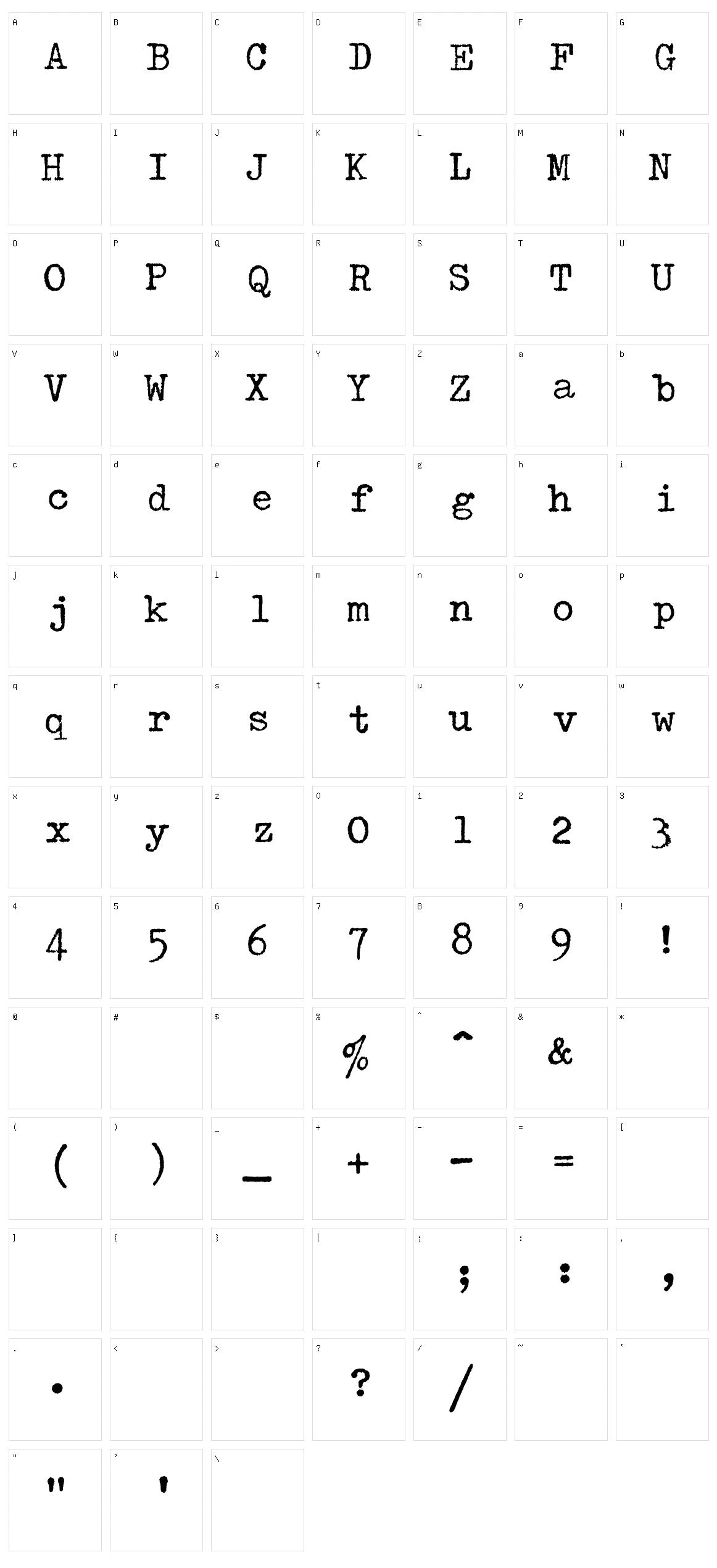
The free font Underwood 319 is carefully designed by Julien Gagne, showcasing a thoughtful balance of creativity and usability and falls under the Typewriter font style. When you download the ZIP file, it contains only 36.68 KB of font files, making it lightweight and quick to download. Please review the license details below to understand permitted usage and distribution rights. If license information is not available, we recommend using this font for personal projects only or contacting the author directly for commercial usage permissions.